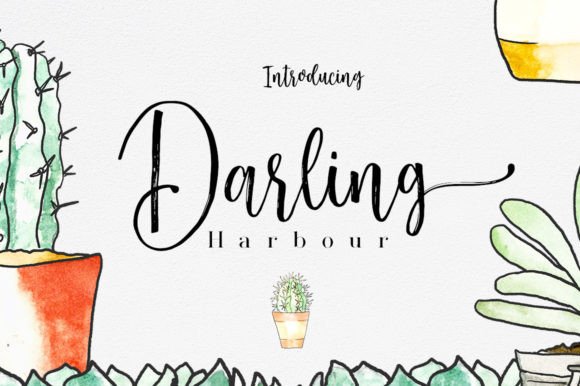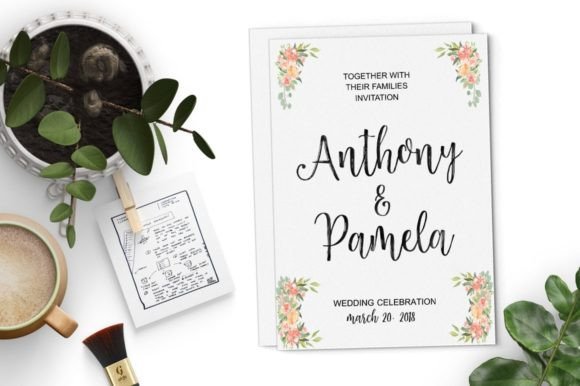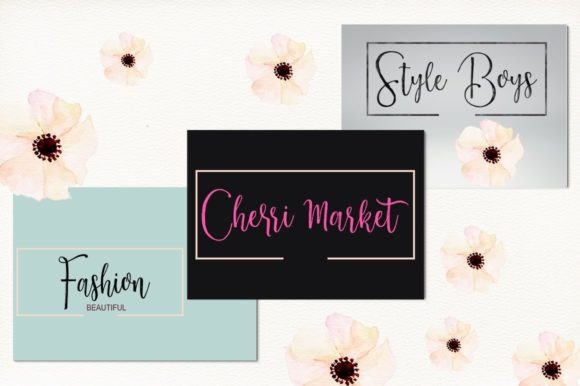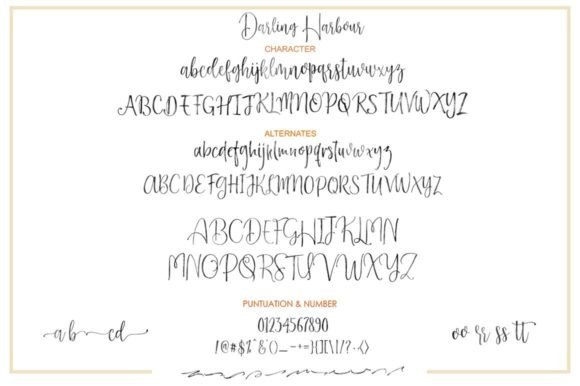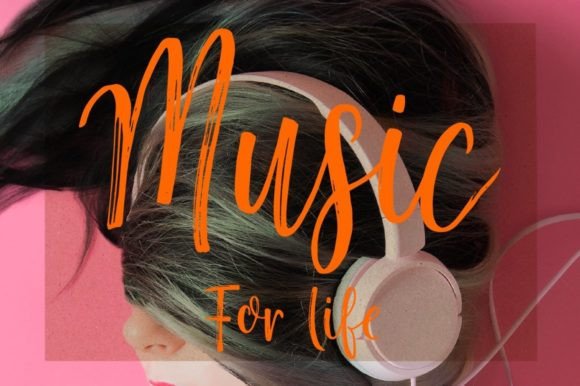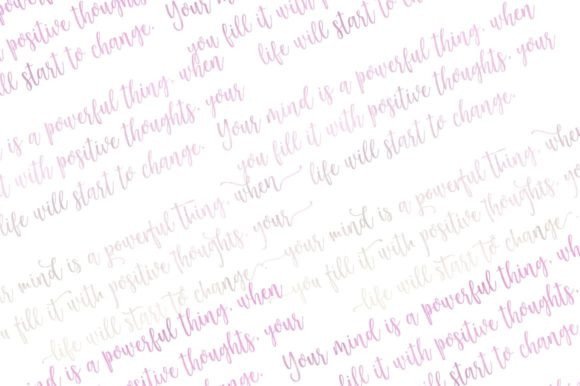
Darling Harbour Font
About Darling Harbour Font
“Darling Harbour” is not just a font; it’s a stylish and cool handwritten brush font designed to add a touch of charm to your creative projects. Its versatile and chic nature makes it suitable for a variety of design applications, from wedding invitations and thank-you cards to quotes, greeting cards, logos, and business cards.
The stylish and cool qualities of “Darling Harbour” are immediately apparent in its handwritten brush design. Each letter carries a sense of flair and character, contributing to an overall aesthetic that is both charming and contemporary. This makes it an ideal choice for projects that demand a stylish and cool handwritten touch.
The font’s suitability for a range of design contexts becomes a standout feature. Whether it’s enhancing the elegance of wedding invitations or adding a touch of charm to business cards, “Darling Harbour” becomes a reliable choice for making your designs visually appealing.
Imagine it on thank-you cards, where its charming handwritten style adds a personal and heartfelt touch. Picture it in logos, creating a distinctive and stylish brand identity. “Darling Harbour” is a font that not only looks stunning but also brings a sense of individuality to your designs.
In summary, “Darling Harbour” is not just a font; it’s a design companion that brings style and charm to your creative projects. Let it be the choice for adding a cool and contemporary handwritten touch to your wedding invitations, thank-you cards, and more. With “Darling Harbour,” every design becomes an opportunity to showcase the beauty of stylish and cool brush typography.